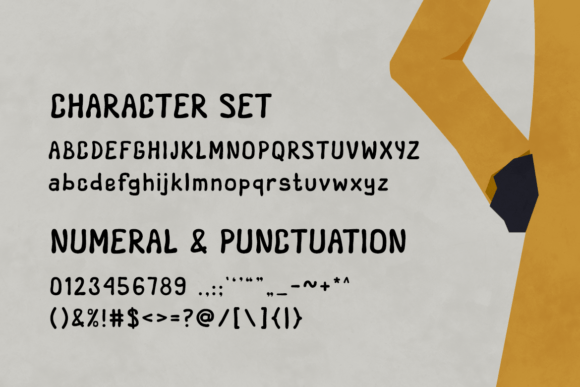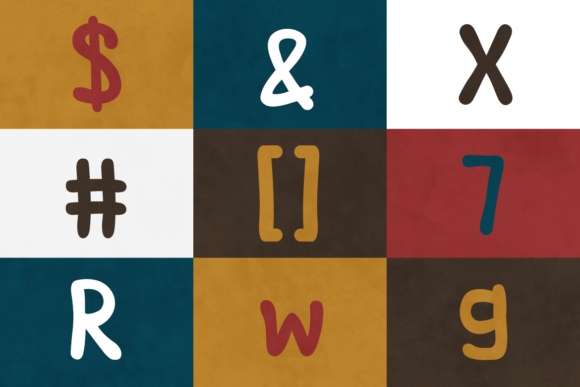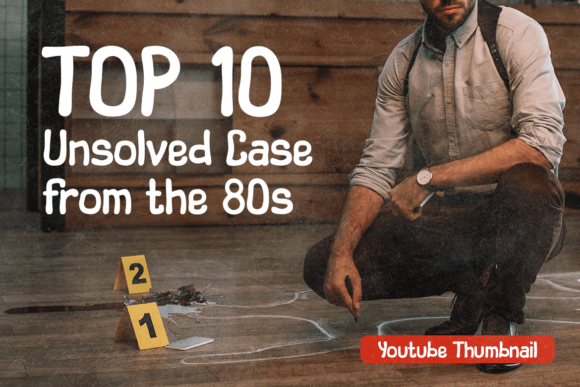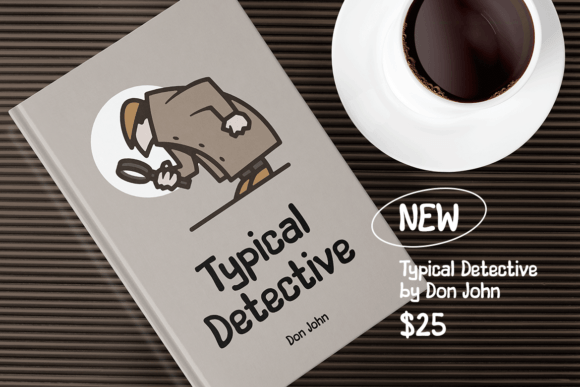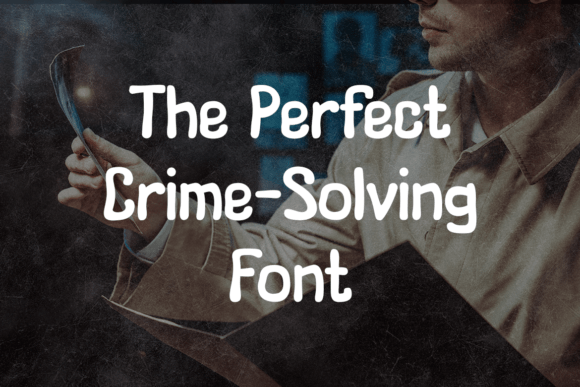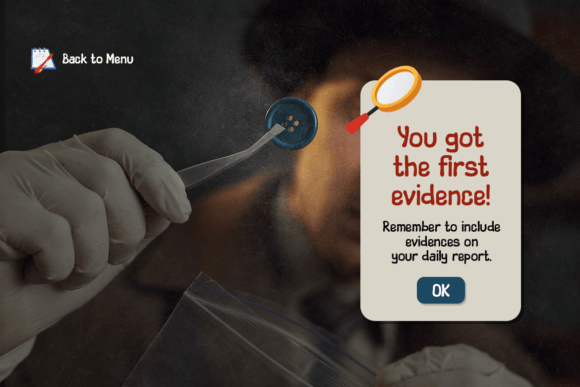
Introduction to Mysterio Font
Have you ever stared at a mysterious figure in a dimly lit alley, wondering what secrets they’re hiding? That’s the kind of vibe the Mysterio Font gives off – a sense of intrigue and curiosity that’s perfect for detectives, mystery children’s books, and even online games.
As designers, we’re always on the lookout for that one special font that elevates our creative project to the next level. And if you’re anything like us, you’ll love the Mysterio Font for its unique blend of style and mystery. With its transparent background and high-quality design, this font is a valuable resource for any designer looking to add a touch of enigma to their work.
Key Features of Mysterio Font
- High-quality design resource ideal for creative projects, offering a unique and eye-catching visual style.
- Features a bold and stylized design, making it perfect for use in titles, headings, and other prominent design elements.
Honest Review: Mysterio Font
I recently came across the Mysterio Font and was excited to give it a try in my latest creative project. The design resource offers a unique and mysterious vibe that I think could add an extra layer of depth to any design.
What works well: ✨ The Mysterio Font is incredibly versatile and can be used for a wide range of creative applications, from titles and headings to body text. The font also features a transparent background, which makes it easy to overlay on any background image or color.
- High quality: The Mysterio Font is a high-quality design resource that is sure to impress.
What doesn’t work well: ⚠️ While the Mysterio Font is a great addition to any design, it may not be suitable for very formal or traditional projects. The font’s unique style may not appeal to everyone, so it’s essential to use it judiciously.
Overall, I’m really impressed with the Mysterio Font and would highly recommend it to anyone looking for a unique and high-quality design resource. Whether you’re working on a creative project or just need a font to spice up your designs, the Mysterio Font is definitely worth checking out.
Tips for Getting the Most Out of Mysterio Font
To get the most out of the Mysterio Font, use it in combination with high-quality images and design elements. Experiment with different font sizes, colors, and styles to create a unique look that suits your brand or project.
The Mysterio Font is perfect for a variety of creative projects, including:
- Social media graphics and ads
- Presentation and document design
- Video and animation overlays
- Blog and website design